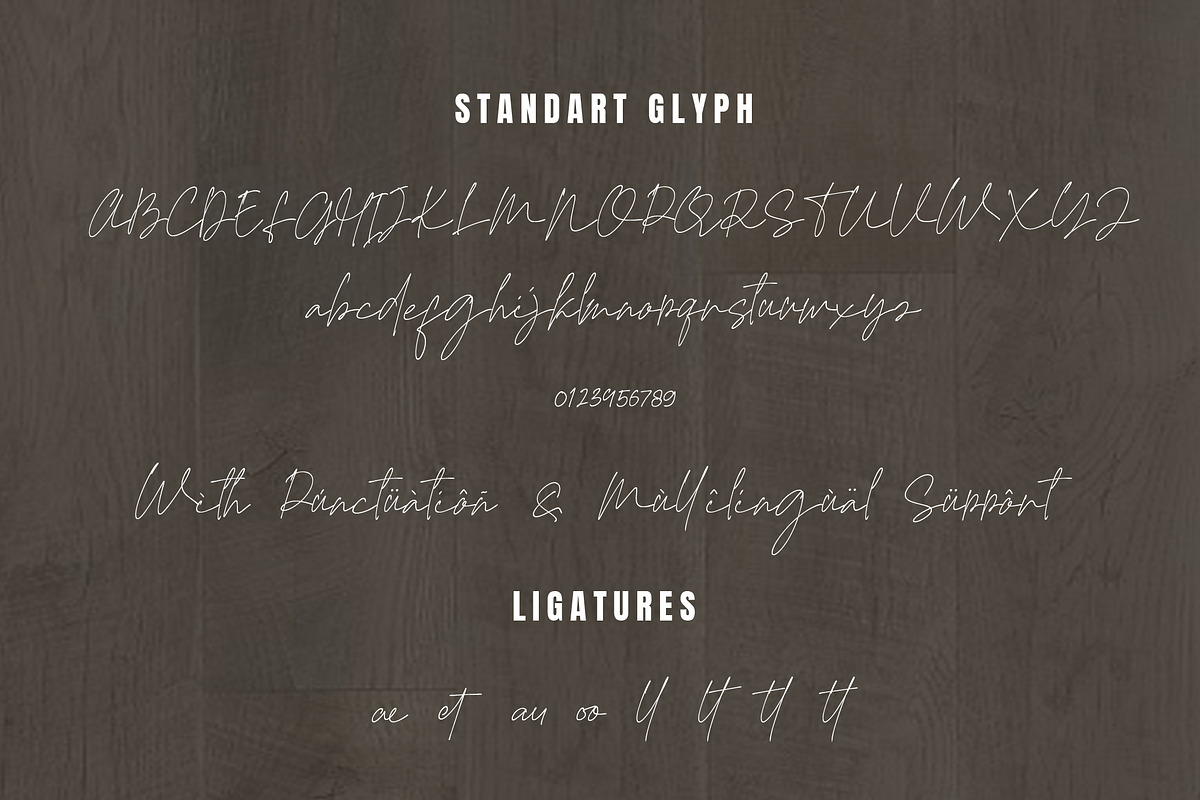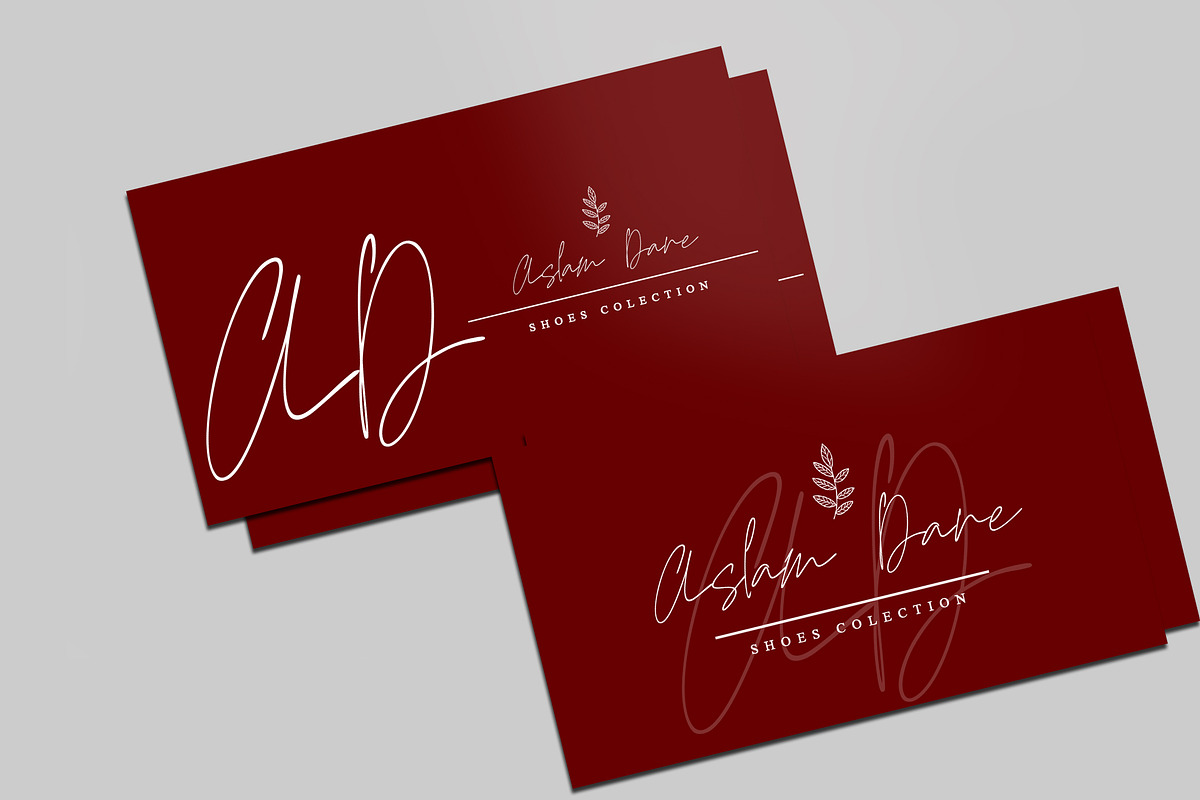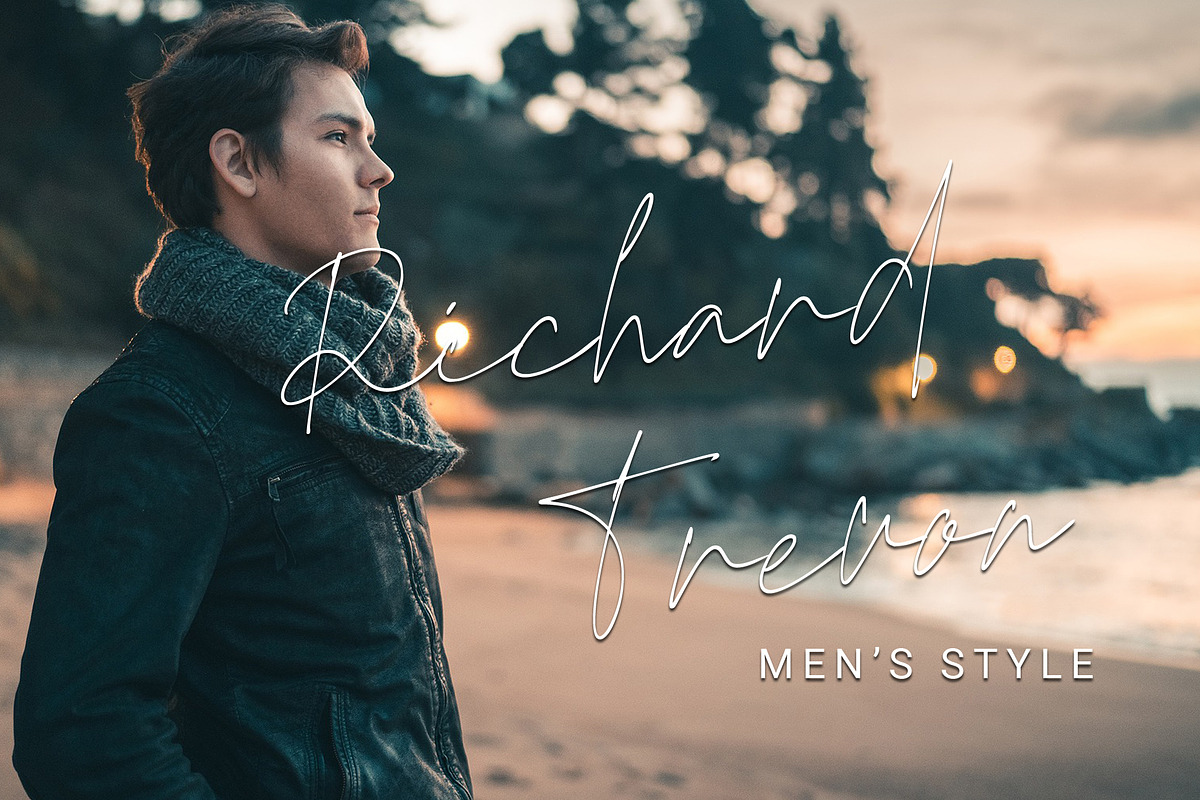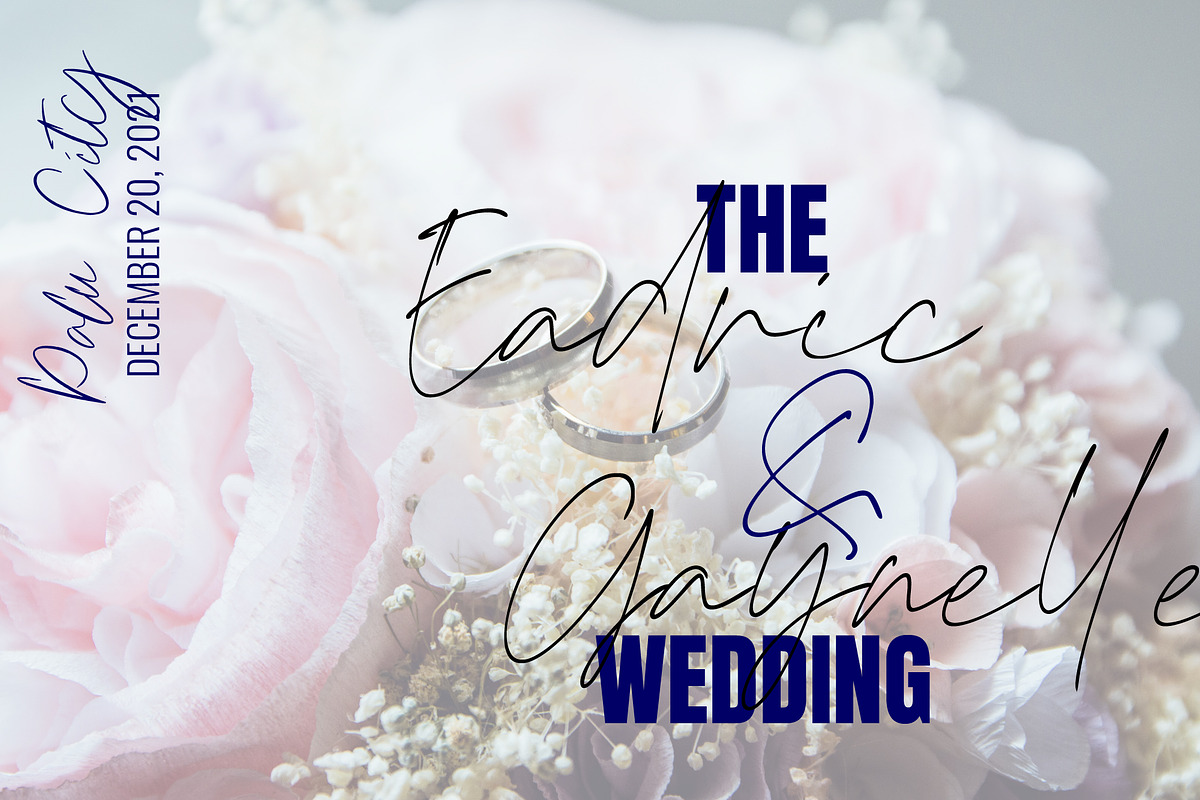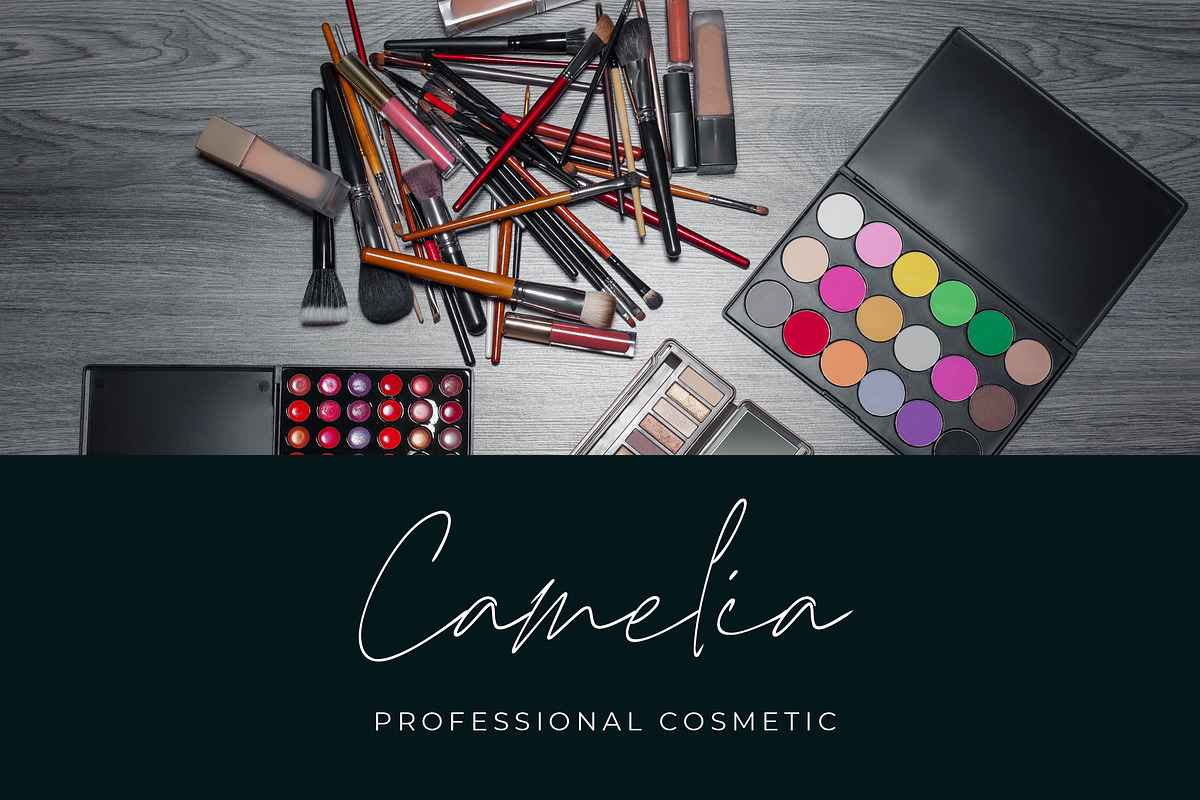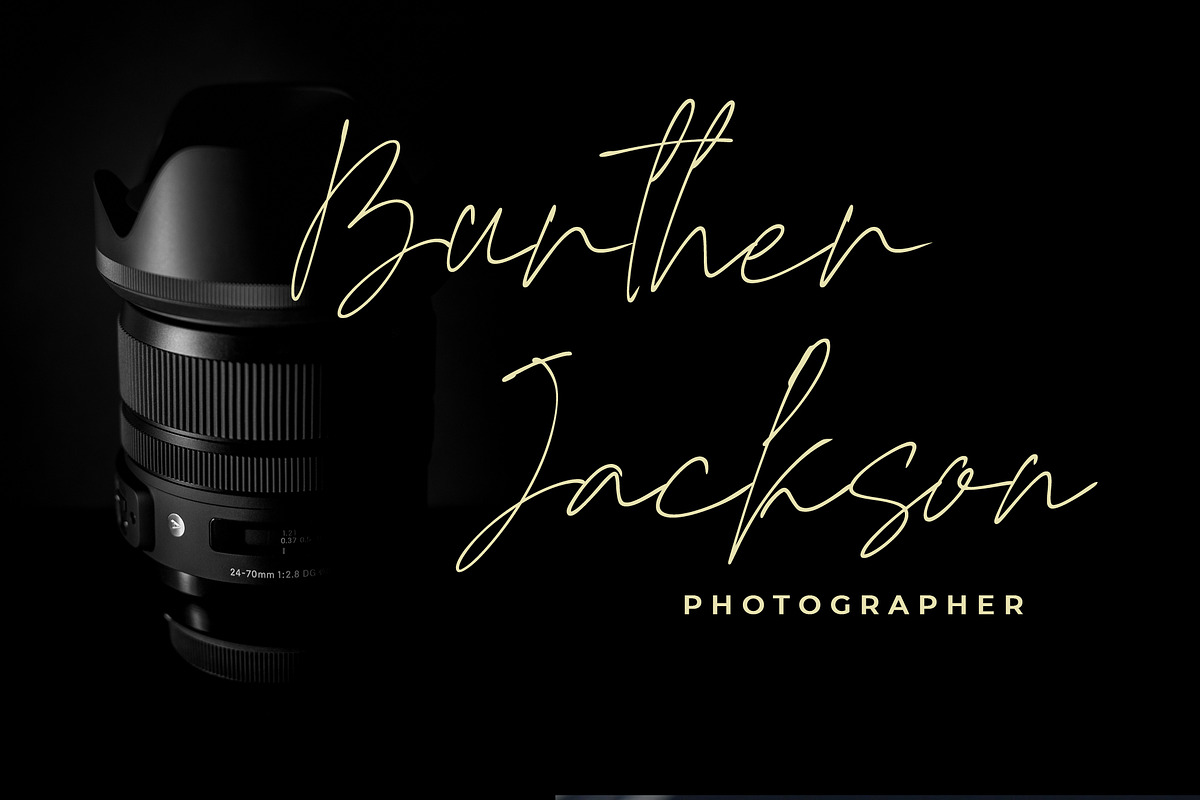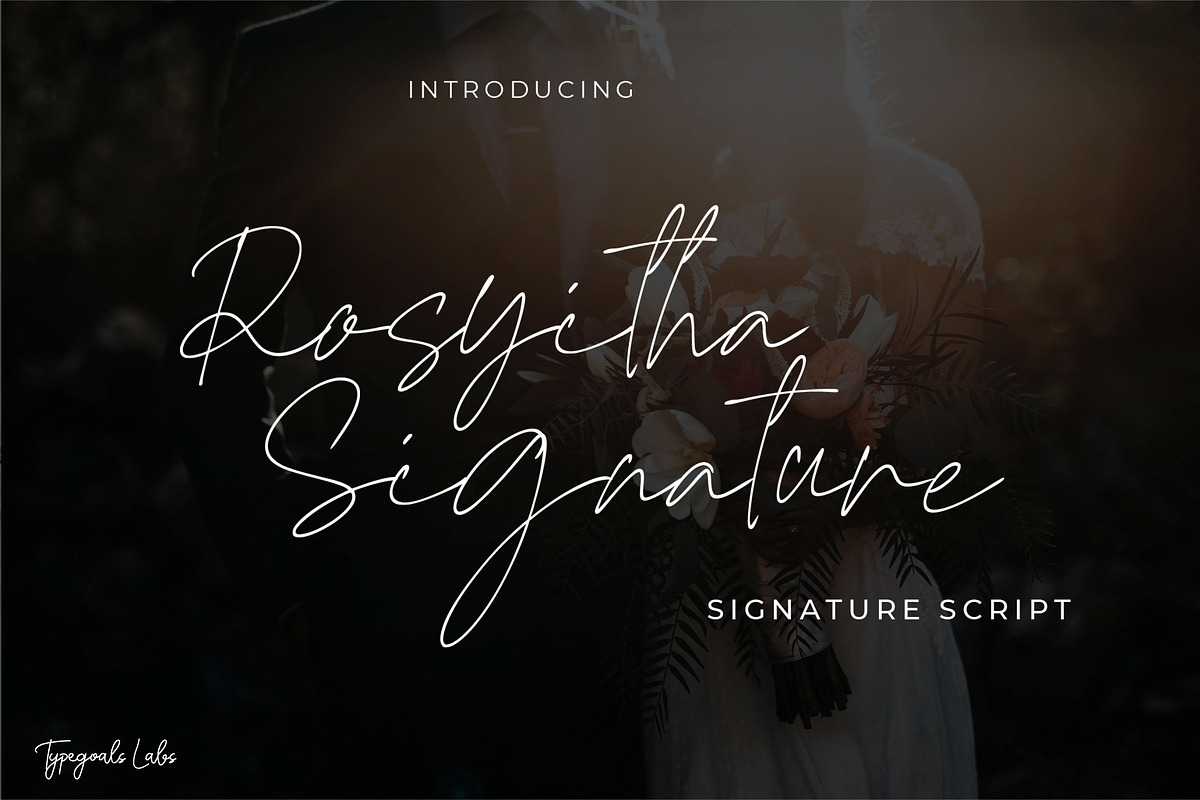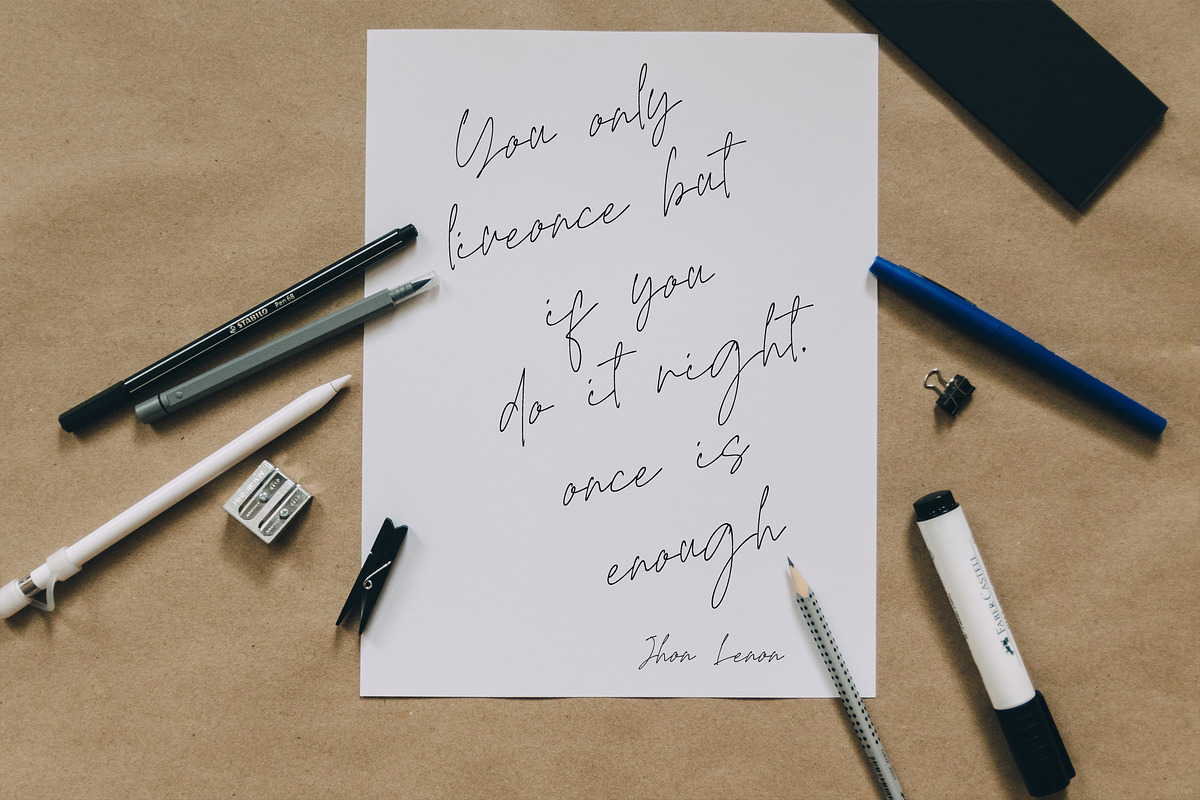
Rosyitha Signature
Rosyitha Signature is an erratic handwritten typeface. With messy and erratic shapes, this font looks so realistic and natural. There are many alternatives, ligatures and swash in it to make the most of your designs.
Rosyitha Signature is perfect for branding projects, logo, wedding designs, social media posts, advertisements, product packaging, product designs, label, photography, watermark, invitation, stationery and any projects that need handwriting taste.